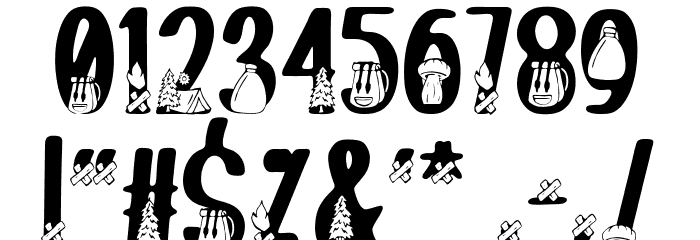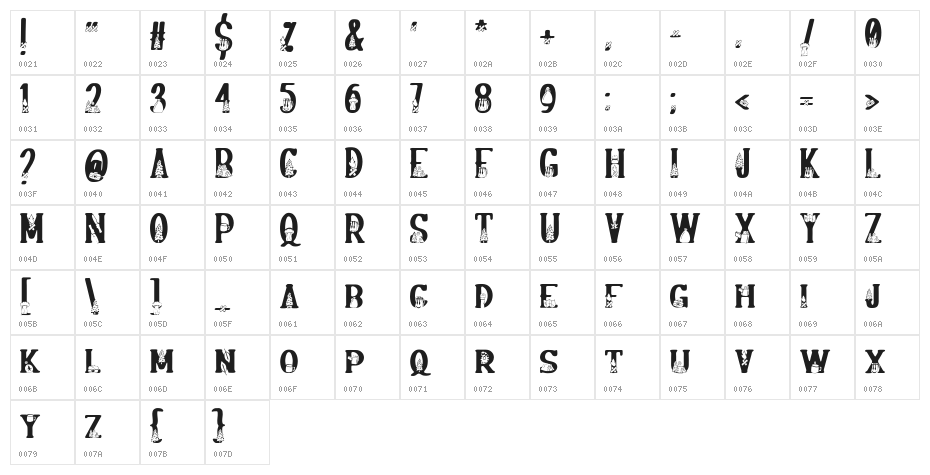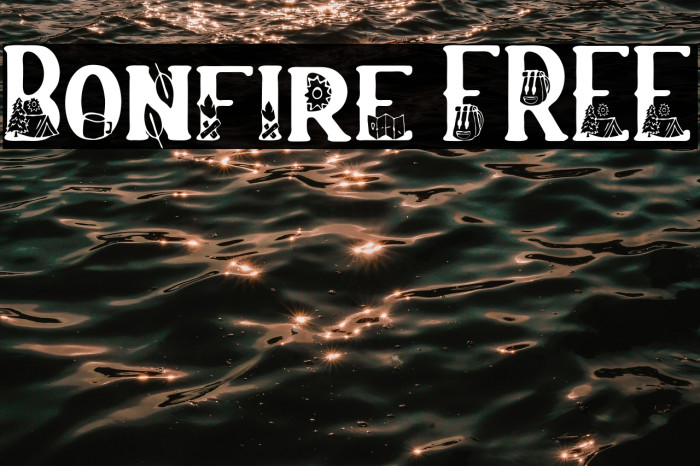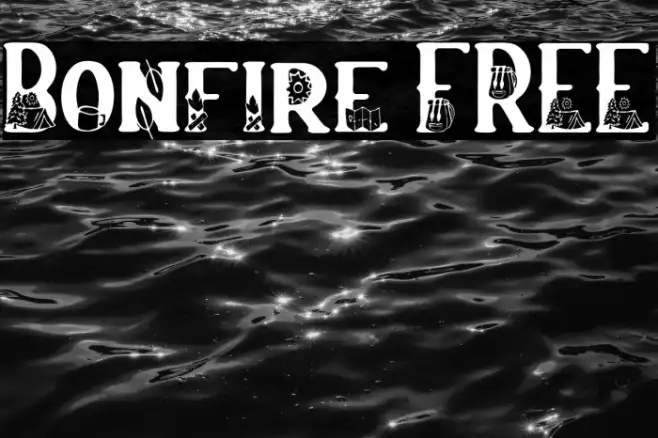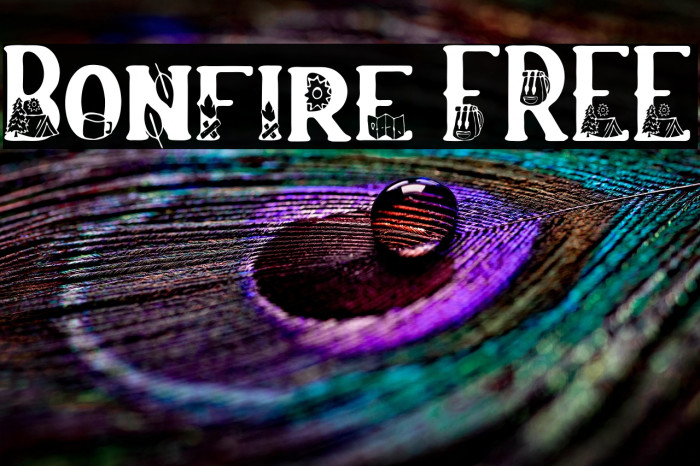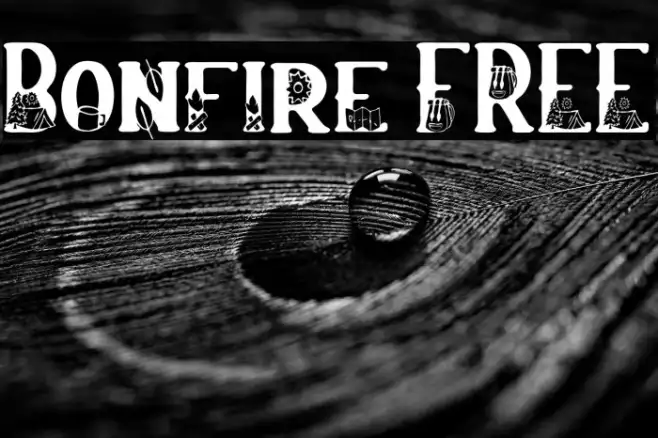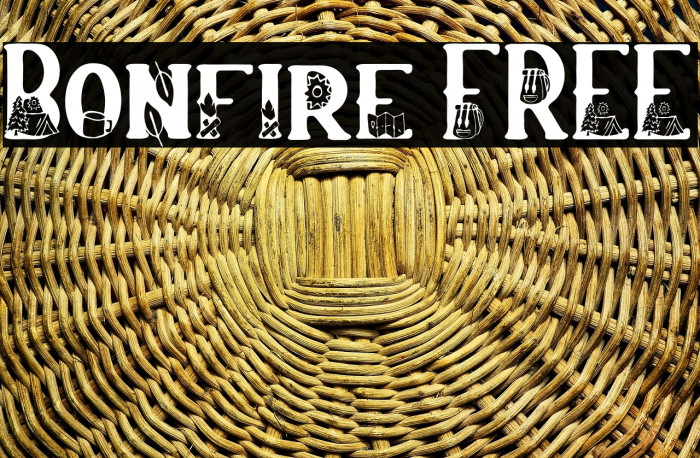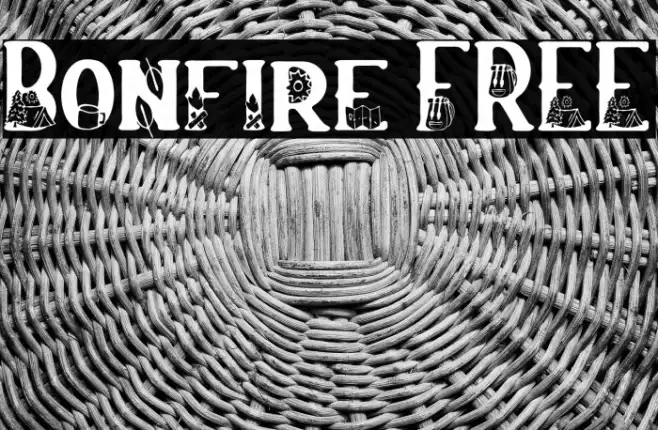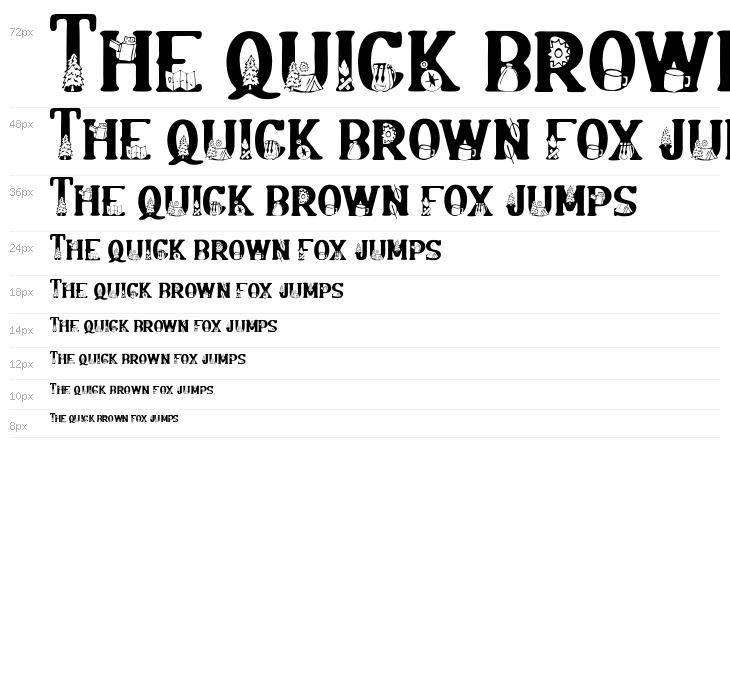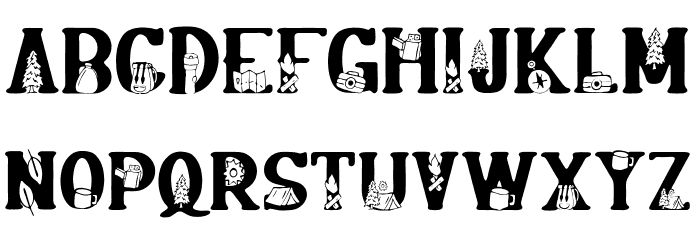
Bonfire FREE Font
Bonfire FREE Description
This font features a playful and decorative style with each character incorporating unique camping-themed illustrations such as trees, logs, tents, and campfires. The uppercase and lowercase letters maintain a consistent height, with bold strokes that create a strong visual impact. The numbers and special characters also follow this thematic design, making the font ideal for projects that require a fun and adventurous aesthetic. The intricate details within each character add a layer of creativity, making it suitable for eye-catching designs.
| Proposed Projects | Ideal for outdoor event posters, children's book covers, camping gear branding, and adventure-themed invitations. |